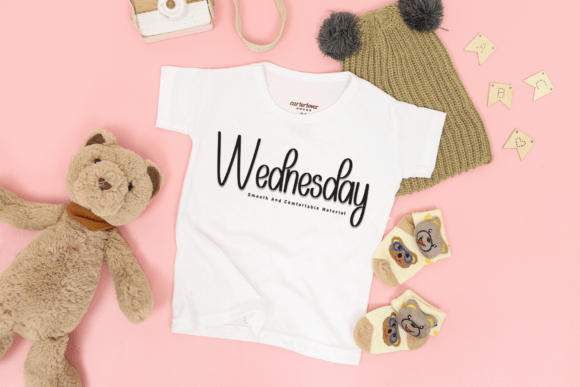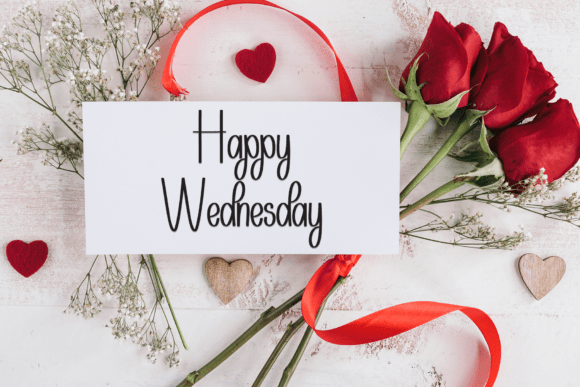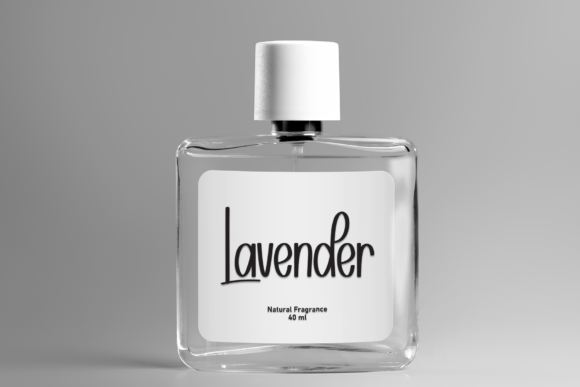
Introduction to Smooties Font
As designers, we’ve all been there – staring at a blank canvas, trying to find the perfect font to bring our creative vision to life. It’s that moment of inspiration when everything clicks, and the right font suddenly appears, elevating our design from good to great. For many, that font is Smooties Font – a stylish handwritten script that adds a touch of elegance and playfulness to any project.
Smooties Font is more than just a design resource; it’s a high-quality tool that offers a transparent background, making it easy to work with and customize. With its flowing curves and natural rhythm, this font brings warmth and sophistication to any creative project. Whether you’re working on an invitation, branding, or social media campaign, Smooties Font is sure to make a lasting impression.
Key Features of Smooties Font
- High-quality design resource ideal for creative projects, offering a unique and playful touch.
- Features a transparent background, allowing for seamless integration into designs and minimizing visual clutter.
- Includes multiple font styles, each with its own distinct character and aesthetic, providing users with a range of creative options.
- Designed with high resolution in mind, ensuring that the font remains crisp and clear even at larger sizes.
- Perfect for use in digital and print projects, from branding and marketing materials to editorial and entertainment content.
Honest Review: Smooties Font
I recently had the chance to try out the Smooties Font, and I must say, it’s been a pleasant experience. The font itself is a beautiful, hand-drawn design that’s perfect for any creative project. With a transparent background, it’s super easy to use and customize to fit your needs.
Here are some of the things that work well with the Smooties Font:
- High-quality design that’s perfect for print or digital use
- Transparent background makes it easy to use with any background image or color
- Only available in a few font weights, which may limit its use in certain designs
- Not suitable for use in small font sizes, as the characters can become difficult to read
- ⚠️ Limited international character support, which may be a problem for designers working with non-English languages
Overall, I’d say the Smooties Font is a solid design resource that’s perfect for designers looking for a unique, high-quality font. With a little creativity and planning, it’s easy to overcome its limitations and create some amazing designs.
The Smooties Font is a versatile design resource that can be used in a variety of creative projects, including graphic design, digital art, and typography. It’s a great choice for designers who want to add a unique touch to their projects without sacrificing quality or style.